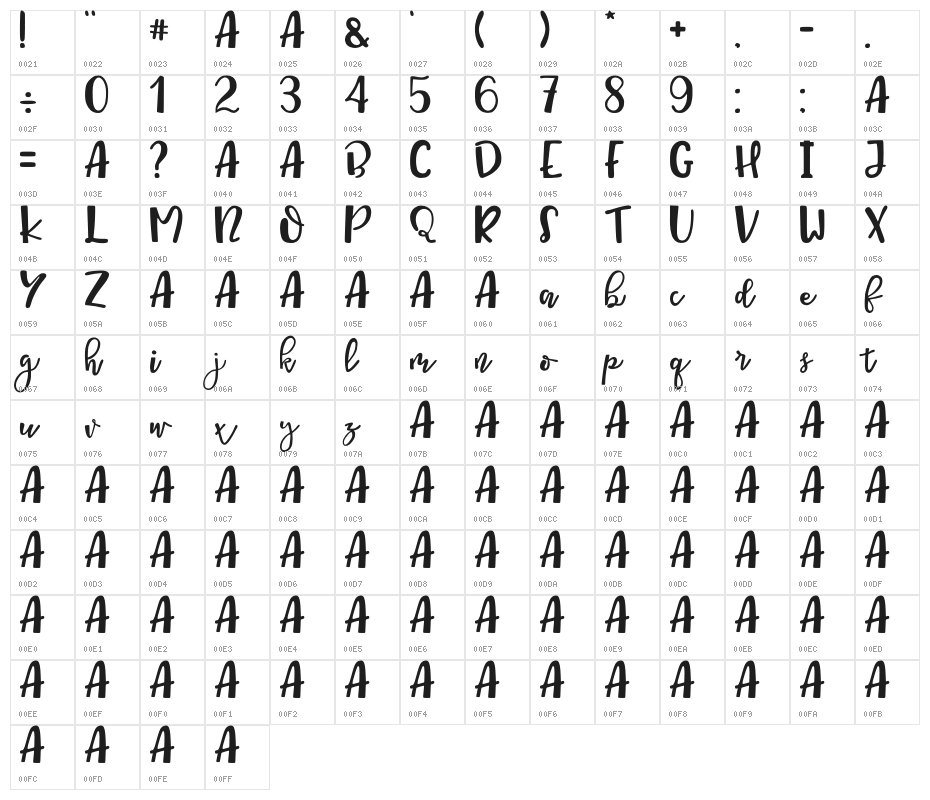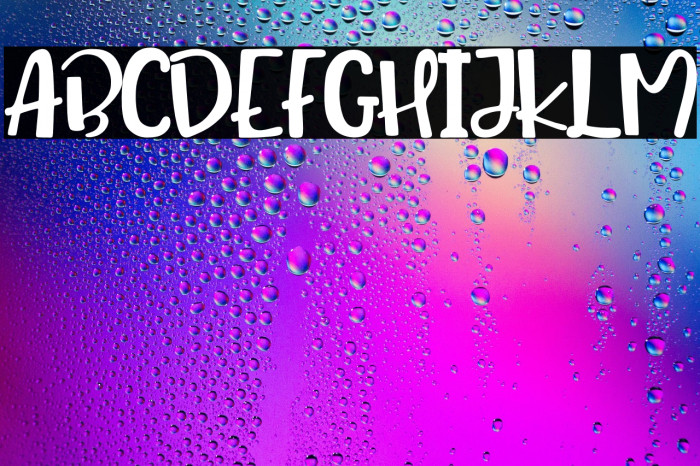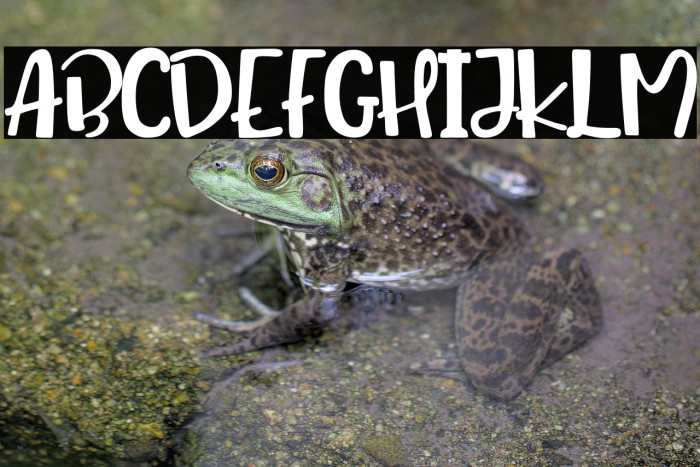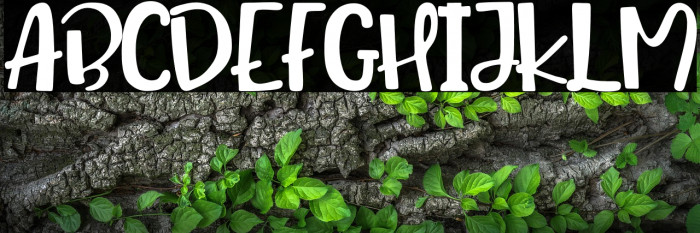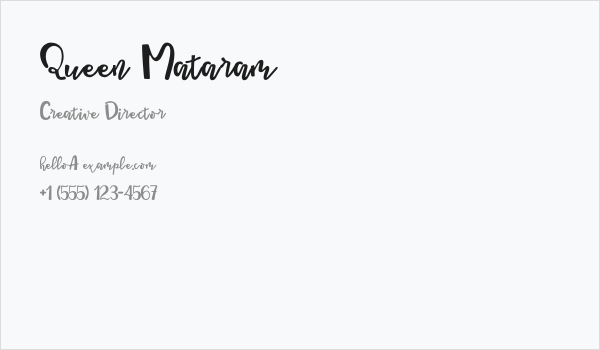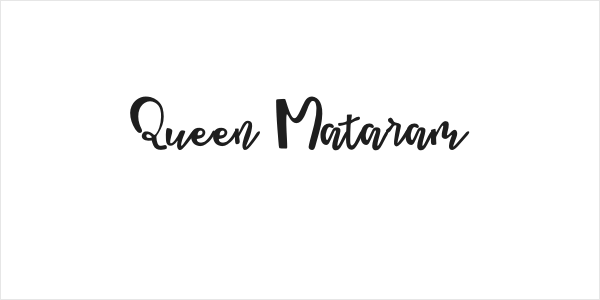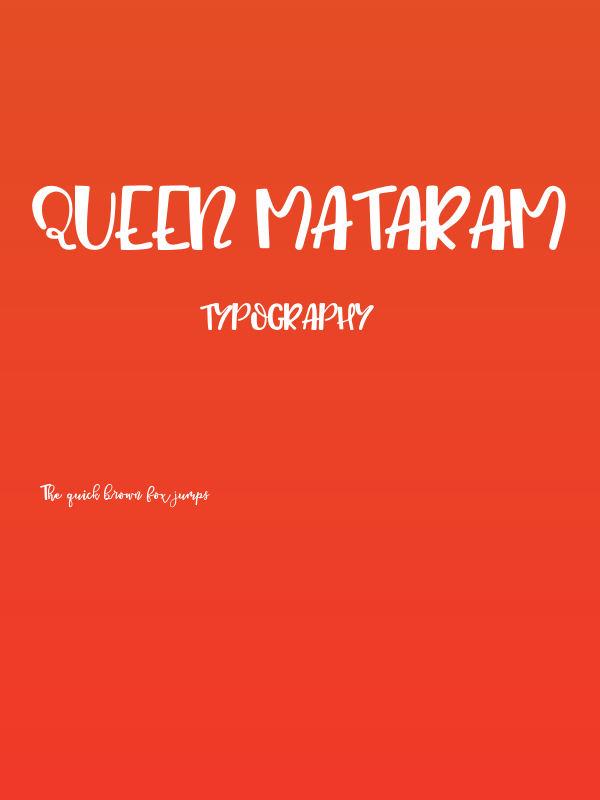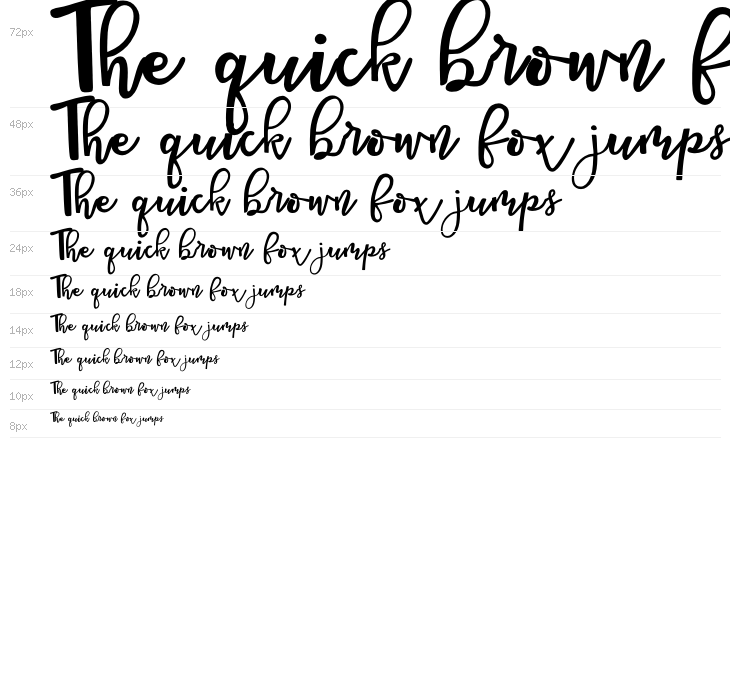
Queen Mataram Font
Queen Mataram Description
This font features a playful and energetic script style with bold, flowing strokes. The uppercase letters are robust and slightly condensed, giving them a strong presence. The lowercase letters are more fluid and connected, resembling a casual handwriting style. The numbers are bold and consistent with the uppercase letters, maintaining a cohesive look. Special characters are creatively designed, adding a unique flair to the overall appearance. The font's lively and dynamic nature makes it suitable for projects that require a personal and approachable touch.